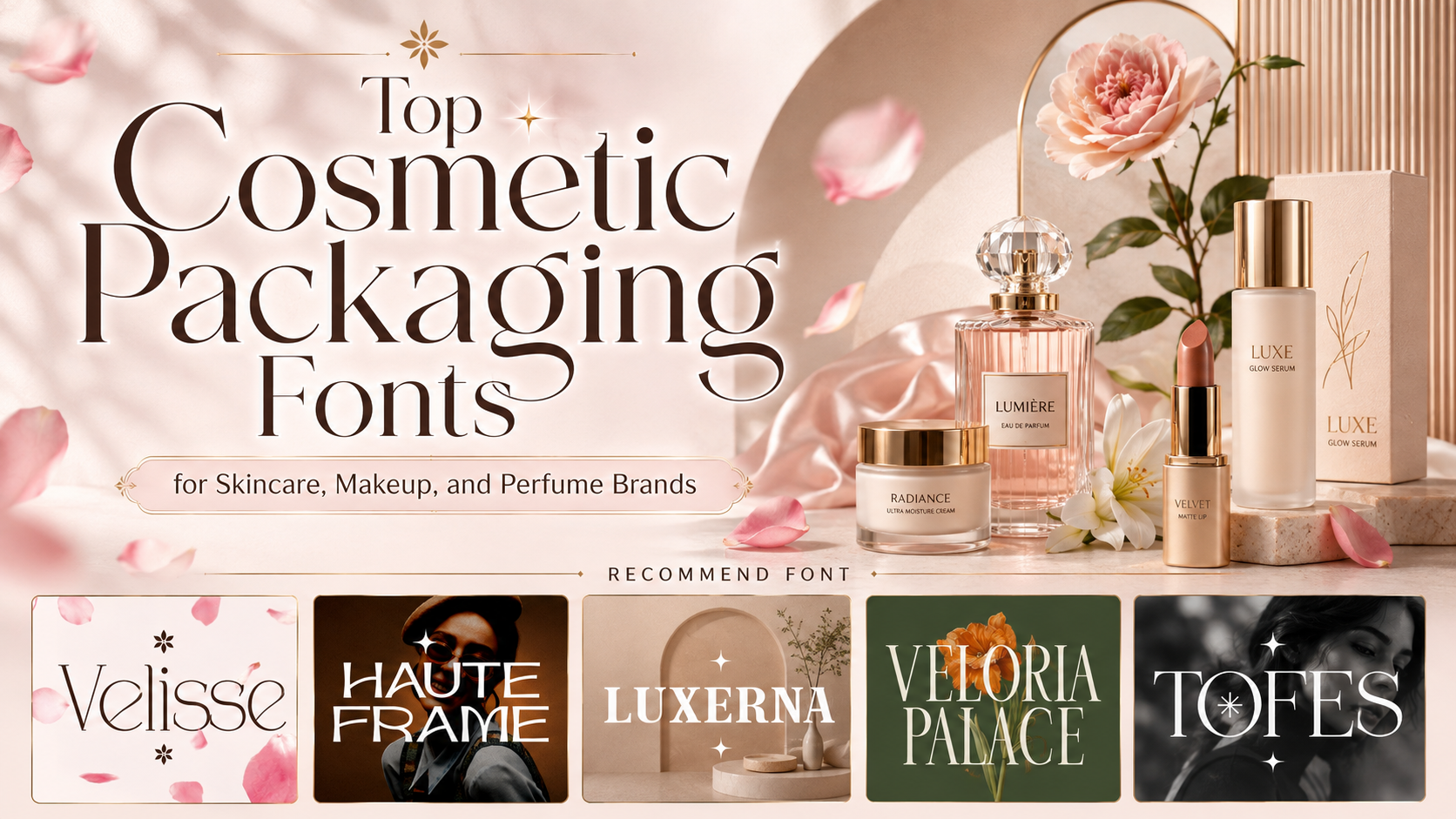
Top Cosmetic Packaging Fonts for Skincare, Makeup, and Perfume Brands
The cosmetic industry is one of the most competitive markets in the world. Consumers often make purchasing decisions within seconds, and packaging plays a significant role in creating that first impression. While colors, materials, and photography attract attention, typography is what gives a beauty brand its personality, credibility, and emotional appeal.
Choosing the best fonts for cosmetic brand packaging is about much more than aesthetics. The right typeface communicates quality, elegance, softness, innovation, or luxury before customers even try the product. Whether you’re designing skincare labels, luxury perfume boxes, makeup packaging, beauty advertisements, or promotional campaigns, typography becomes one of the strongest elements that defines your brand identity.
Modern cosmetic brands increasingly combine refined serif fonts, minimalist sans serif fonts, and artistic display fonts to create packaging that feels timeless while remaining visually distinctive. This balance helps products appear premium, trustworthy, and memorable across both physical shelves and digital marketplaces.
Initial Suggestion
Before selecting any font, identify the personality of your cosmetic brand.
• Luxury skincare brands benefit from elegant serif typography.
• Minimalist beauty startups often perform better with clean geometric sans serif fonts.
• Premium perfume brands can combine sophisticated serif headlines with minimalist supporting text.
• Trend-focused makeup brands frequently use bold display fonts for limited collections and seasonal campaigns.
• Organic and clean beauty brands generally pair modern typography with natural color palettes to reinforce sustainability.
Consistency across packaging, logo design, website, social media, and advertising is equally important. A beautiful font becomes significantly more effective when every customer touchpoint reflects the same visual language.
1. Velisse – Feminine Serif Font
Velisse is designed for beauty brands that want to express elegance, softness, and premium craftsmanship. Its graceful serif structure features refined proportions and sophisticated letterforms that instantly elevate cosmetic packaging, luxury skincare labels, perfume branding, and premium editorial layouts. The font feels luxurious without becoming overly decorative, making it highly versatile for both classic and contemporary beauty brands.
Pros
• Elegant feminine serif
• Premium luxury appearance
• Excellent readability
• Works beautifully for logos and packaging
• Timeless design
Luxury skincare, perfume brands, premium cosmetics, facial treatment products, beauty boutiques.
2. Haute Frame – Fashion Font
Haute Frame combines modern fashion aesthetics with clean luxury typography. Inspired by editorial magazines and high-end fashion branding, it delivers a sophisticated appearance that works exceptionally well for cosmetic campaigns, beauty packaging, premium product launches, and lifestyle branding. Its balanced proportions create a refined visual hierarchy while maintaining excellent readability across both print and digital media.
Pros
• Fashion-inspired elegance
• Contemporary luxury feel
• Excellent for premium branding
• Strong visual impact
• Highly versatile
Luxury cosmetics, beauty editorials, fashion-inspired packaging, premium campaigns, modern skincare.
3. Luxerna – Display Modern Minimalist Font
Luxerna embraces minimalism without sacrificing personality. Its clean geometry, spacious construction, and modern display style create packaging that feels fresh, sophisticated, and highly recognizable. This makes it an excellent option for cosmetic startups looking to establish a premium image while maintaining a clean and contemporary visual identity.
Pros
• Modern minimalist style
• Clean luxury appearance
• Excellent display typography
• Premium contemporary branding
• Digital-friendly
Minimal skincare brands, clean beauty products, startup cosmetics, wellness brands, luxury packaging.
4. Veloria Palace – Classic Serif Fonts
Veloria Palace delivers timeless sophistication through beautifully crafted serif letterforms. It combines traditional luxury with modern refinement, making it ideal for cosmetic brands that want to project heritage, trust, and exclusivity. Whether used for perfume boxes, premium skincare collections, or elegant beauty editorials, the font communicates confidence and prestige.
Pros
• Classic luxury serif
• High-end branding
• Elegant details
• Premium readability